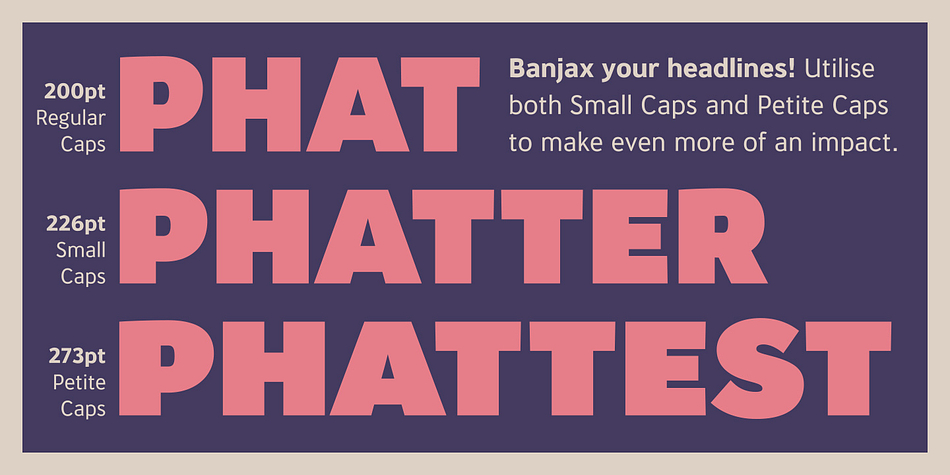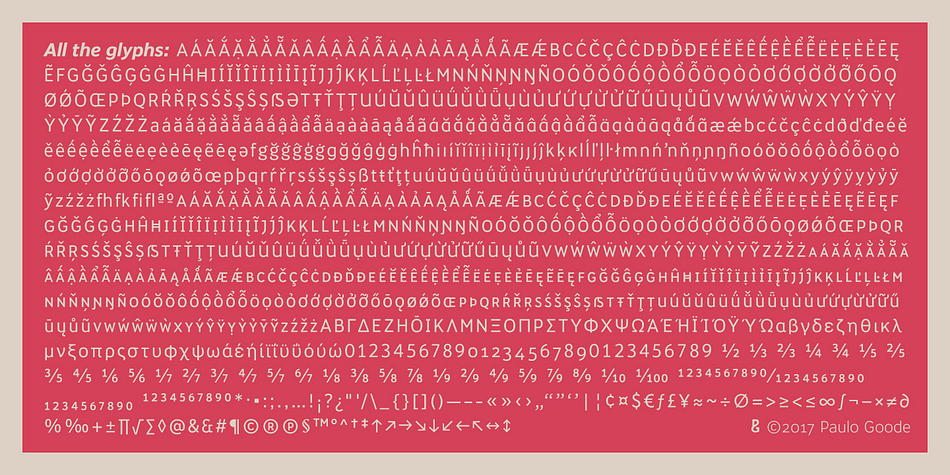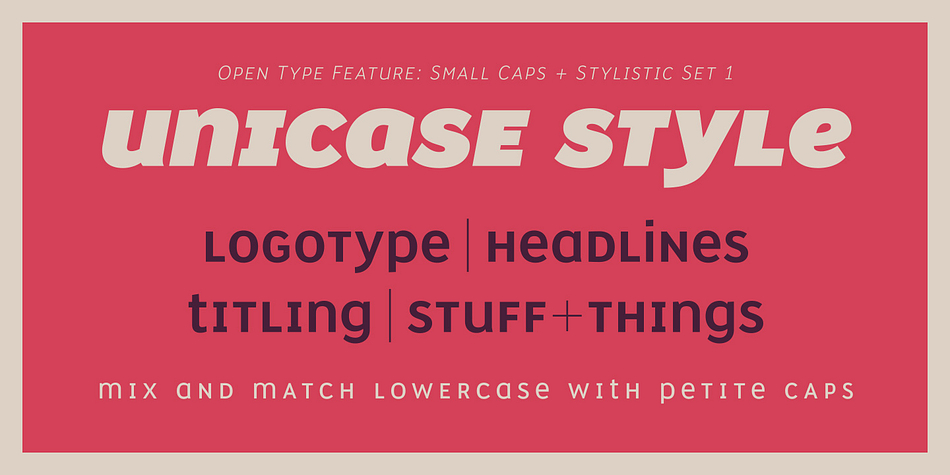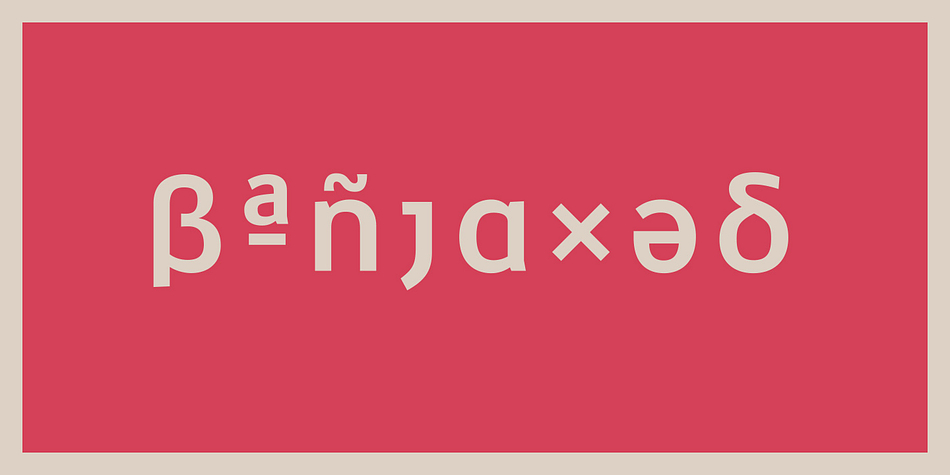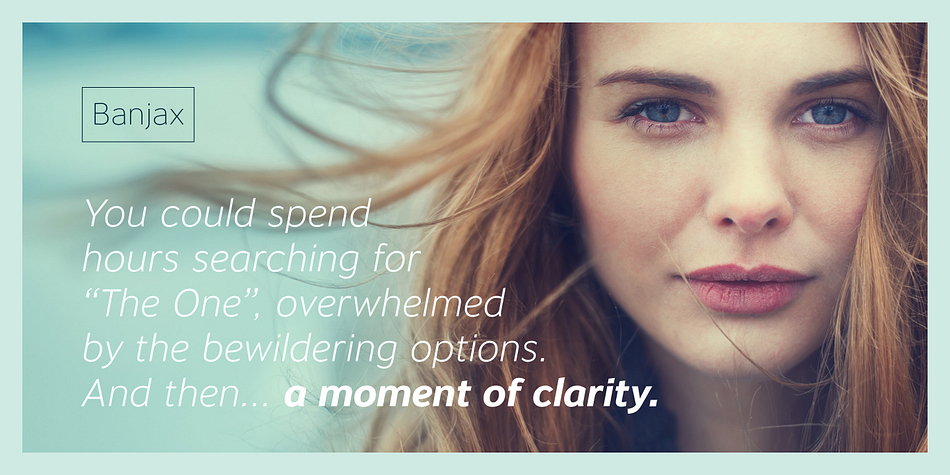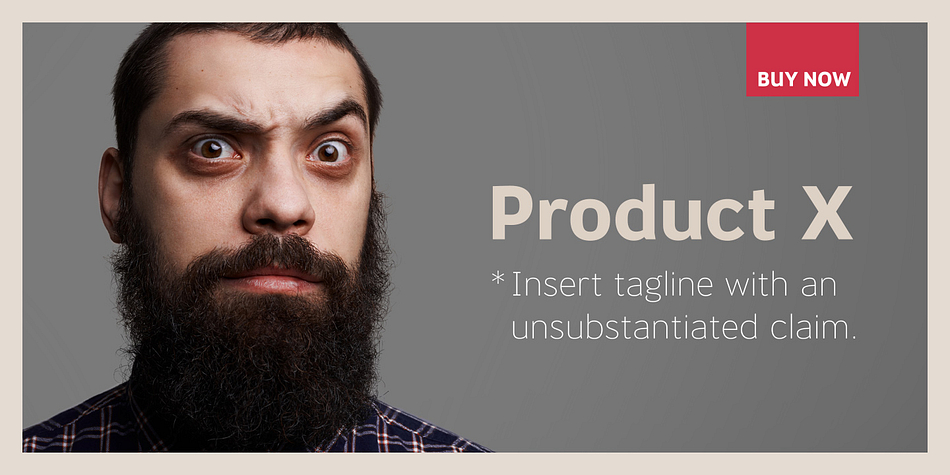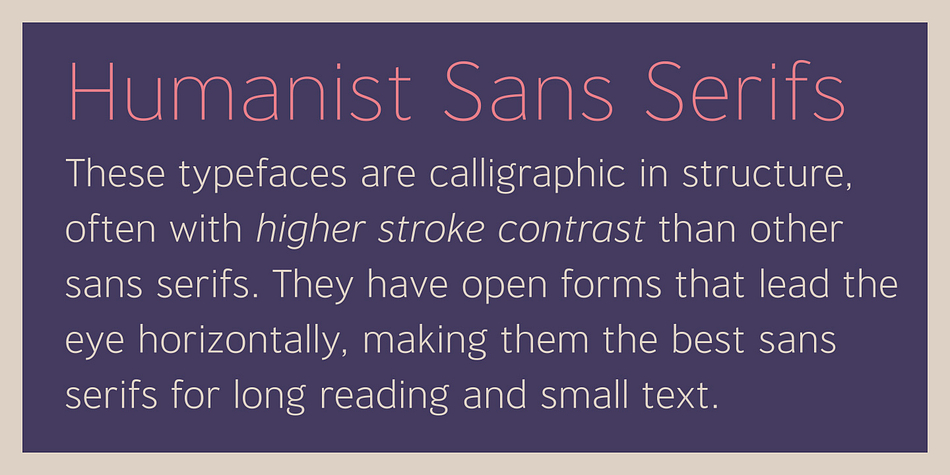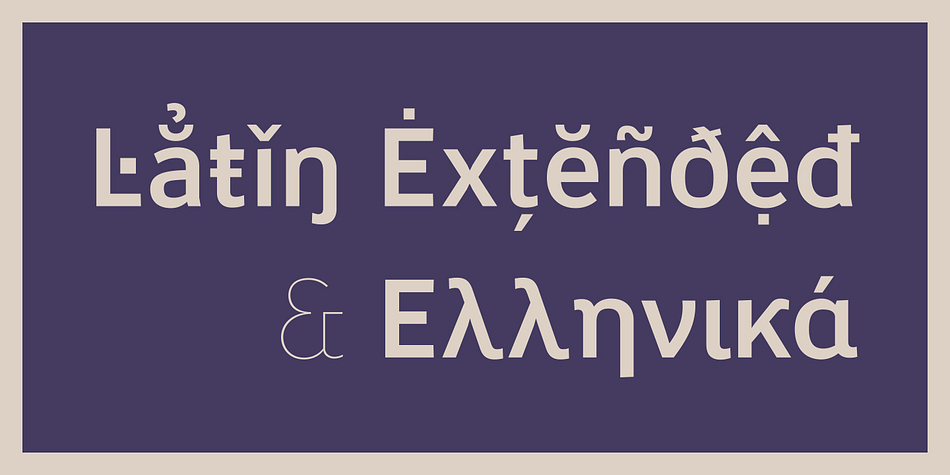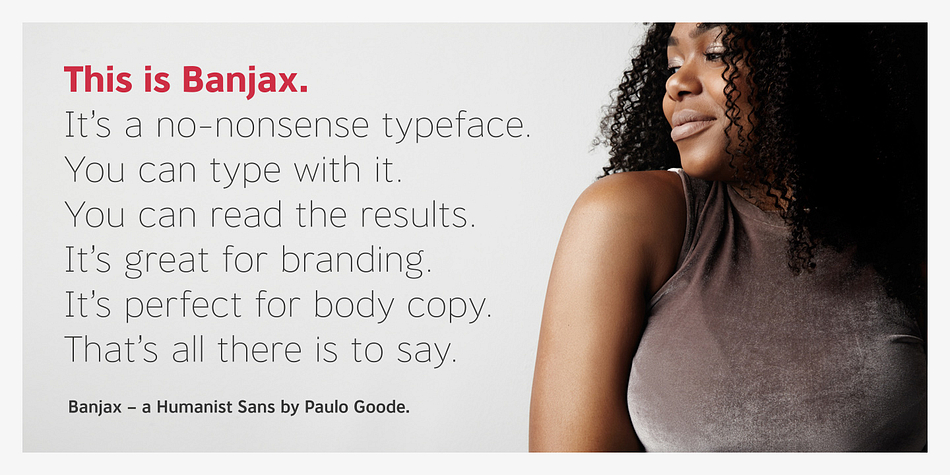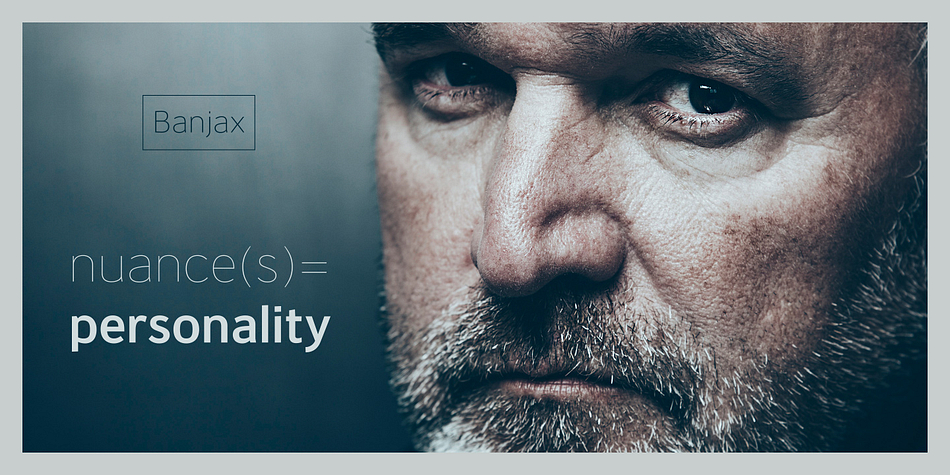
Designed by Paulo Goode, Banjax is a sans serif font family. This typeface has eighteen styles and was published by Paulo Goode.
Banjax is a humanist sans serif typeface, designed to be highly versatile and efficient in both print and digital environments. The extreme weights are perfect for display purposes, with the central core weights ideal for body copy. While Banjax has a branding focus, it would be suitable for pretty much any text application in any Latin language.
Distinguishing features include a large x-height, short descenders, distinctive asymmetrical contrast, angled terminals, squared dots and punctuation, and maybe a little flair here and there to enhance this typeface’s personality.
Key features:
• 9 weights in Roman and Italic
• Small Caps, Petite Caps and 3 Alternates
• Latin Extended and Basic Greek glyphs
• 1100 glyphs per font.